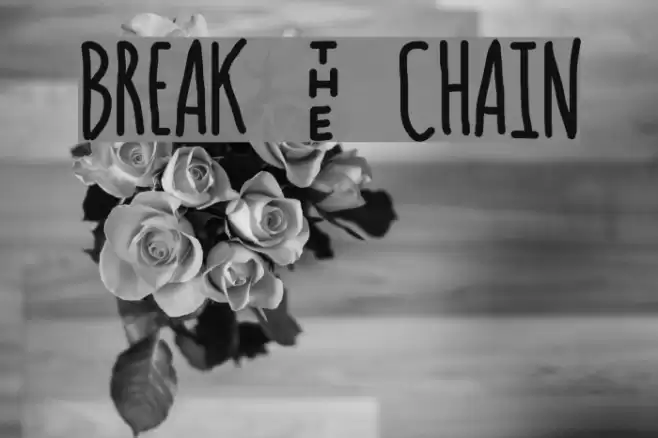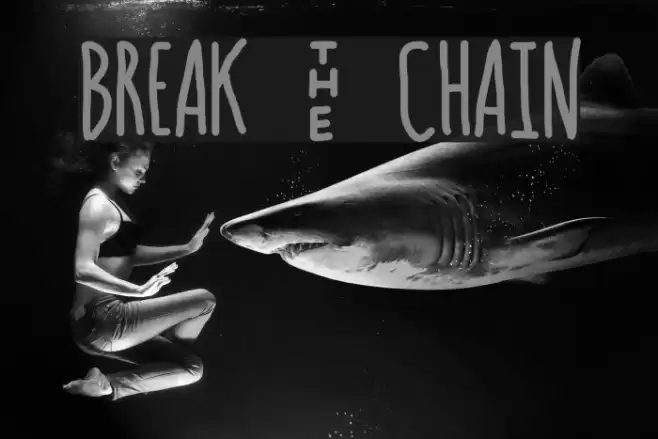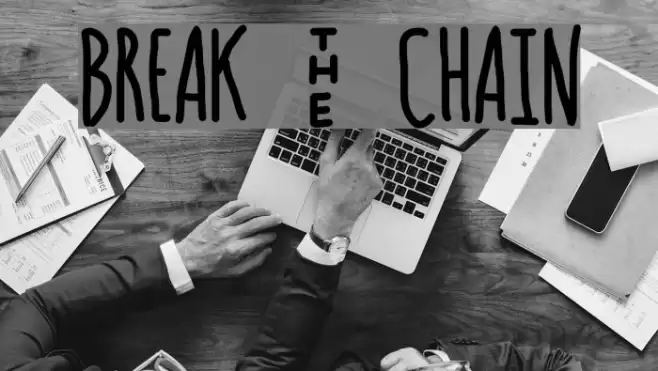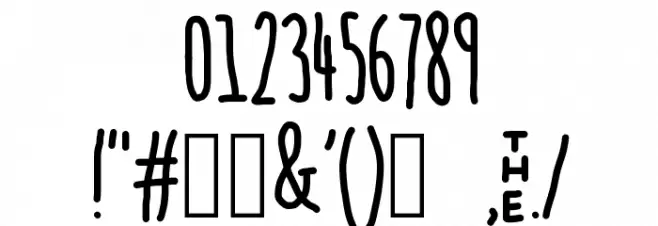
BREAK - CHAIN Font
BREAK - CHAIN Description
This playful and informal font features a handwritten style with a casual and friendly appearance. The letters are slightly irregular, giving it a natural and organic feel. The uppercase and lowercase characters maintain a consistent flow, with rounded edges and a slight tilt that adds to its charm. The numerals and special characters are crafted in the same whimsical style, ensuring a cohesive look across all text. This font is perfect for projects that require a personal touch or a relaxed vibe, such as invitations, greeting cards, or children's books.
A playful handwritten font with a casual and friendly style from Uncategorized fonts.
- Proposed Projects: Ideal for invitations, greeting cards, children's books, and casual branding.
- Overall Style: Casual, Playful
- Use Case: Headlines, Informal text, Creative projects